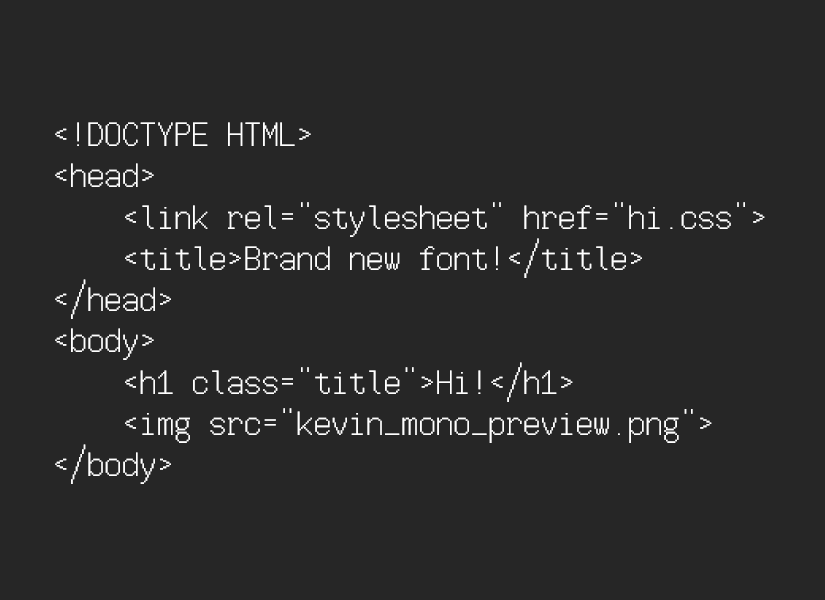
• Meet Kevin Mono, a neo-grotesque monospaced pixel font based from UEK Nitere Mono (formerly known as "UEK Clainicodex" before 14/07/2026) font. It provides higher X-height for providing better roundness in lowercase letters, and better digit designs.
• - Latin Extended-A glyphs has been added!
The sample of the font